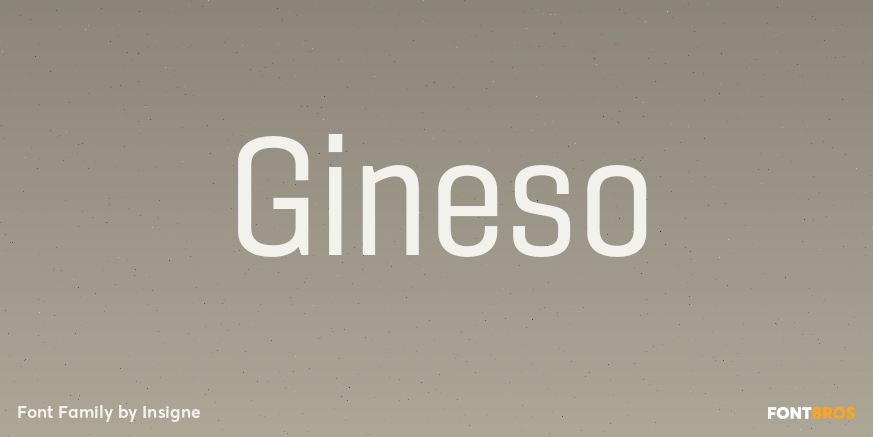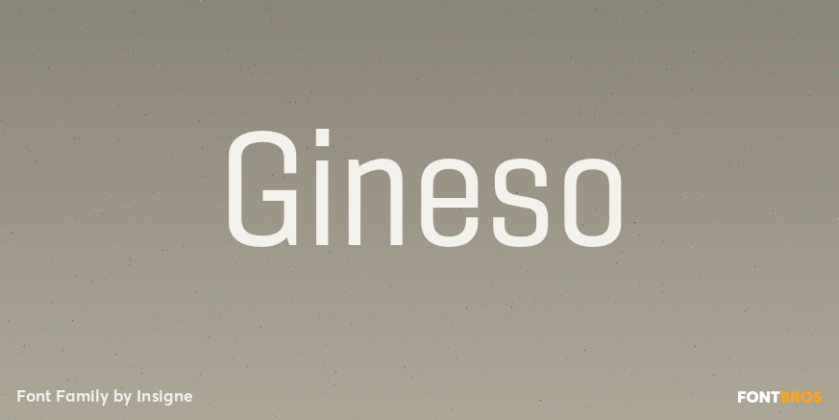
Gineso
About Gineso
Gineso was created for posters, headlines and logotypes. (It does well in apps, too, though the sign painters probably weren\’t thinking about that at the time.) Aesthetically remedied, yet still with an uncut charm, Gineso\’s condensed qualities make it…